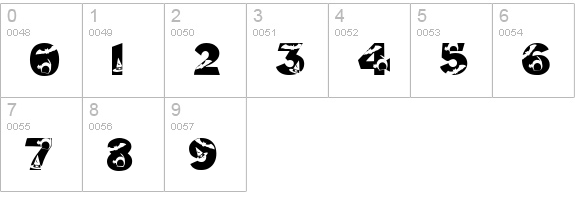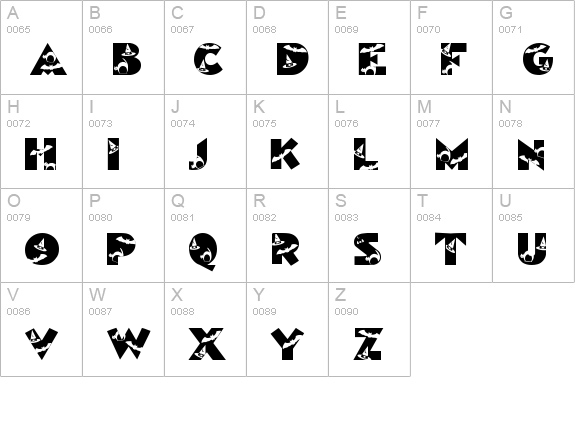
HalloweenKiddyFont Font Details
Introducing HalloweenKiddyFont, a spooktacular font that will bring a touch of playful mischief to your Halloween-themed projects! This font is a perfect blend of fun and fright, designed specifically with the little ones in mind. Its quirky, childlike letters are adorned with cute and spooky Halloween-themed elements, making it the ideal choice for invitations, posters, party decorations, and more! But what sets HalloweenKiddyFont apart from the rest is that it is completely free! Yes, you read that right. This mesmerizing font is freely available to download at FontsMarket.com, the go-to destination for font enthusiasts. Now, you can make your Halloween designs stand out without breaking the bank! With HalloweenKiddyFont, you can effortlessly capture the essence of Halloween and create captivating visuals that will leave everyone spellbound. Its unique and eye-catching style will bring your Halloween projects to life, making them the talk of the town. So why wait? Dive into the enchanting world of HalloweenKiddyFont and let your creativity run wild. Download it for free today at FontsMarket.com and watch as your Halloween designs become truly bewitching!